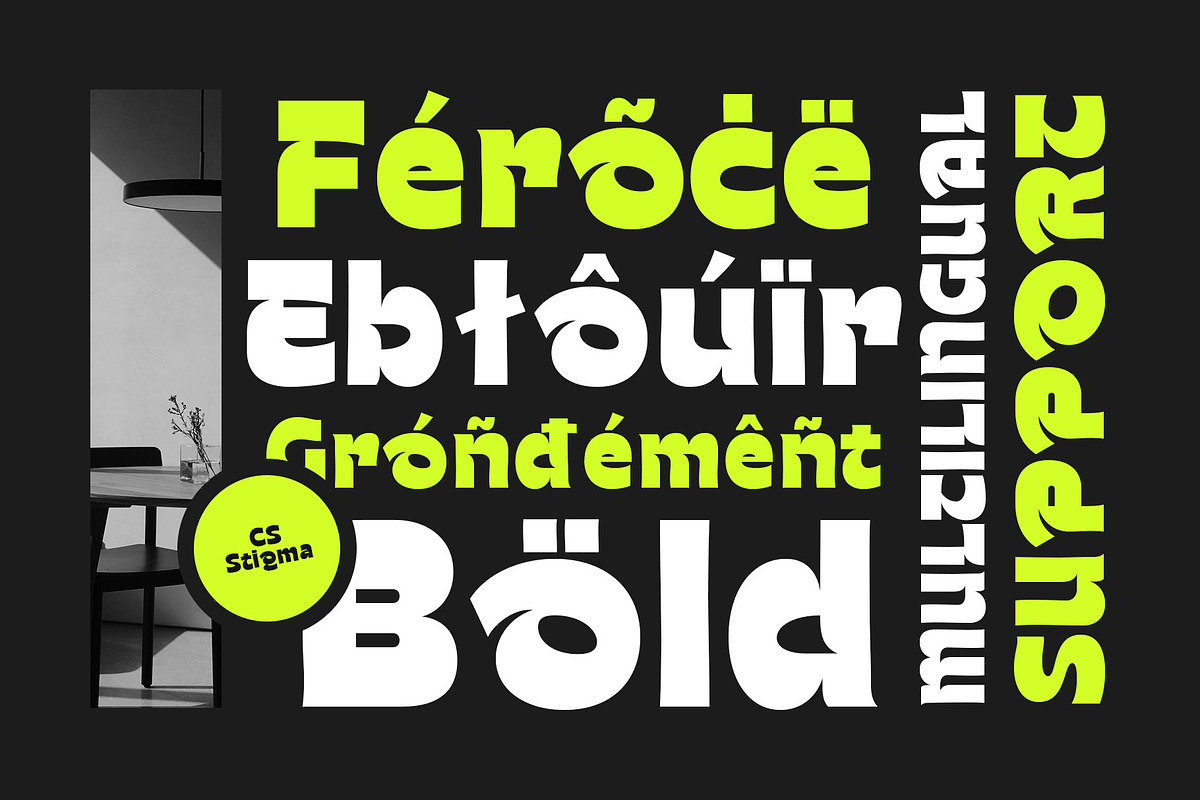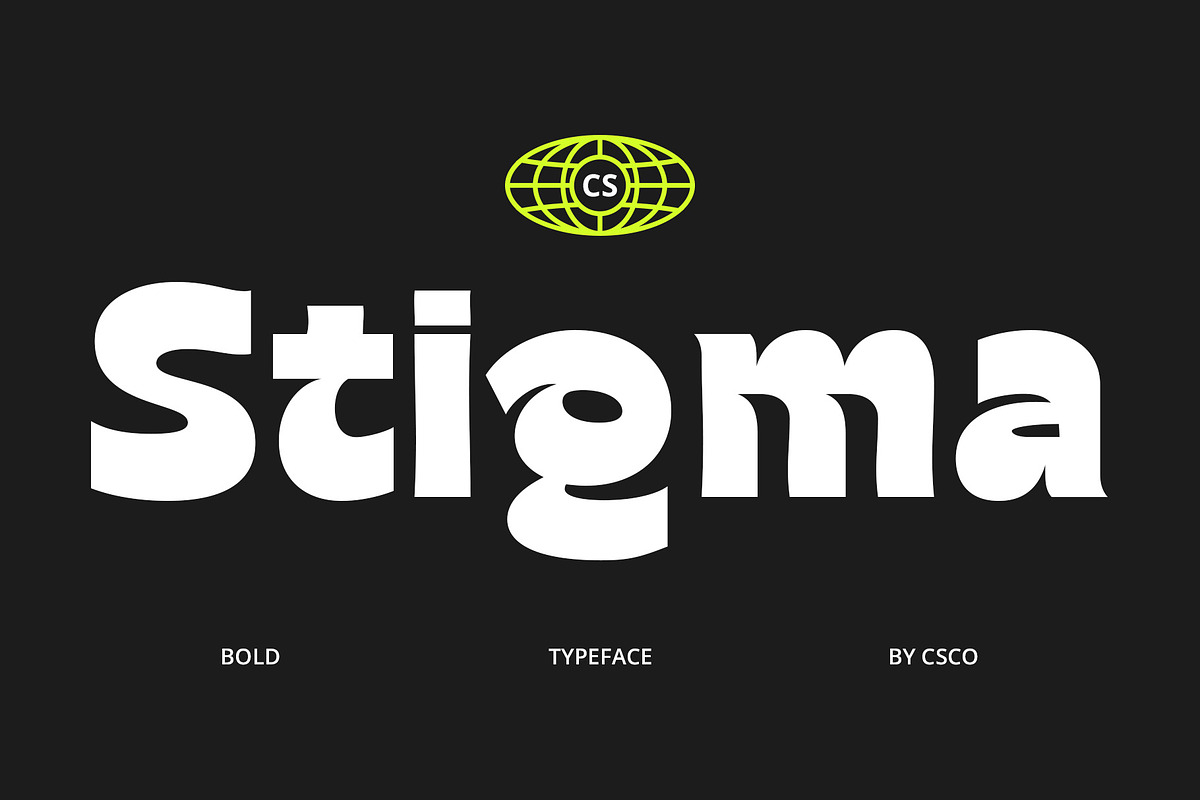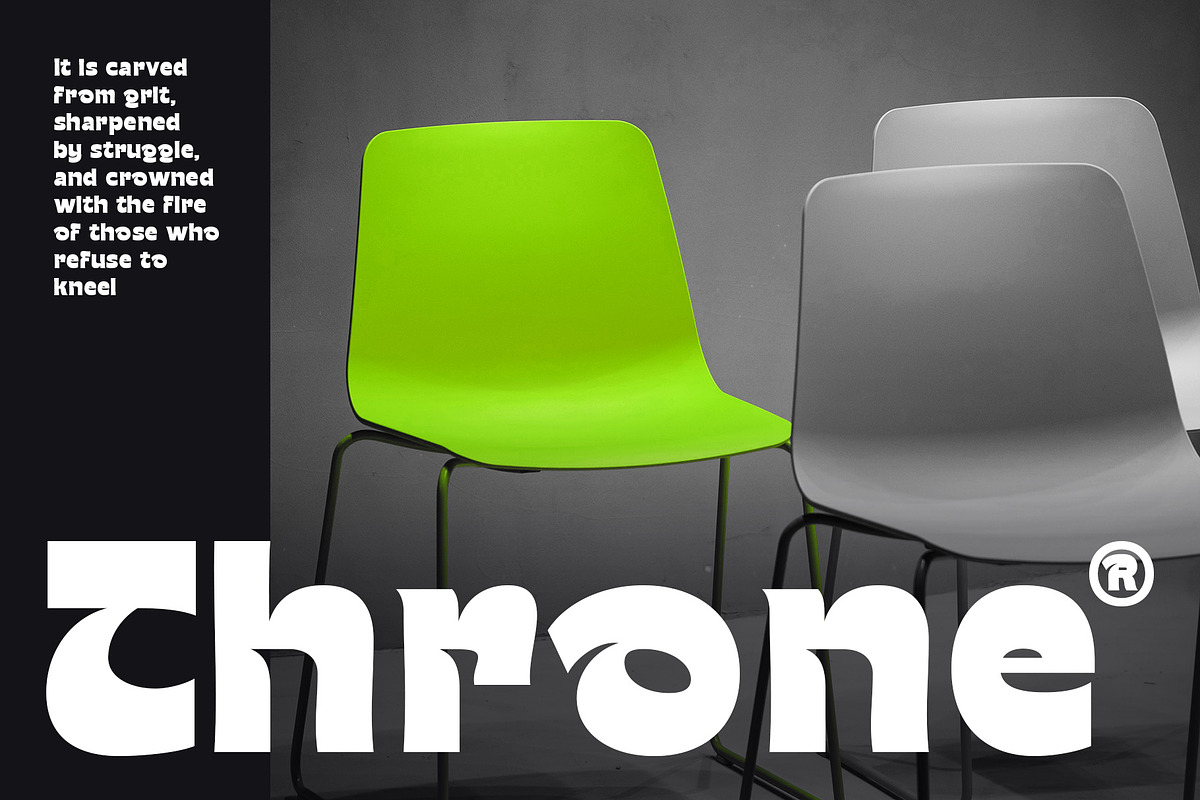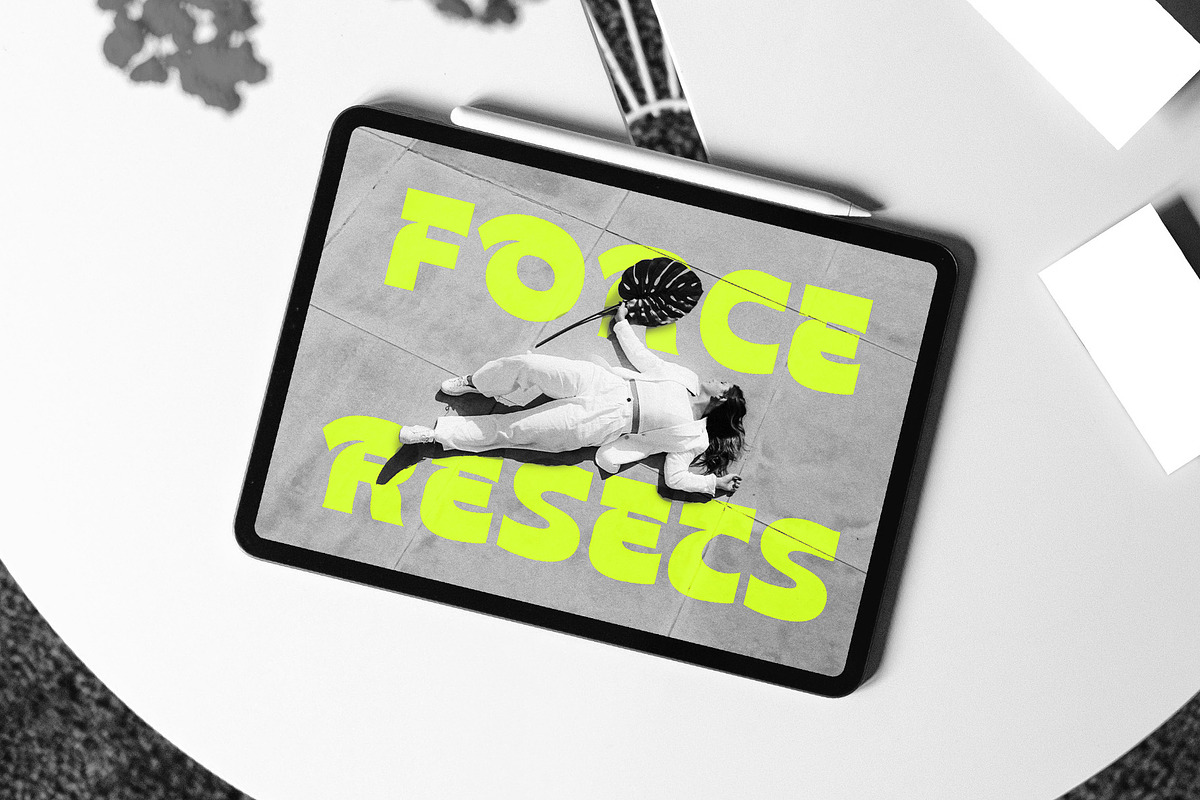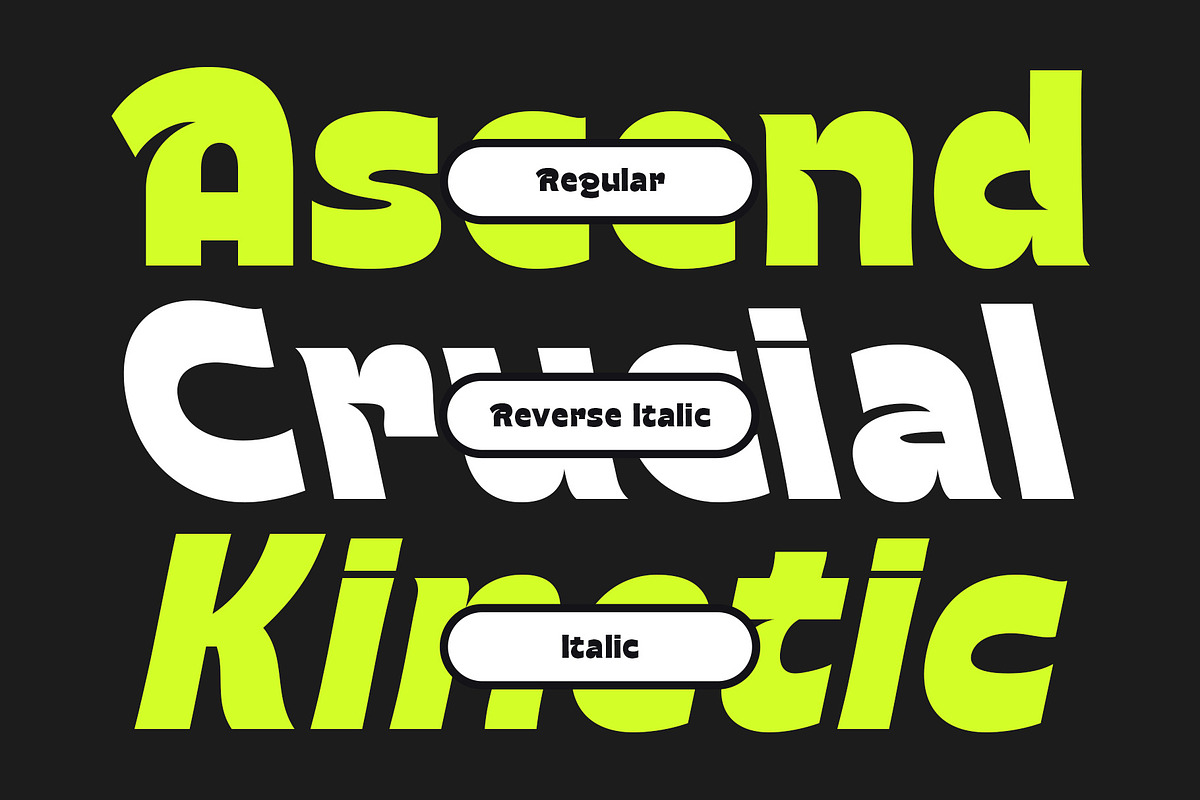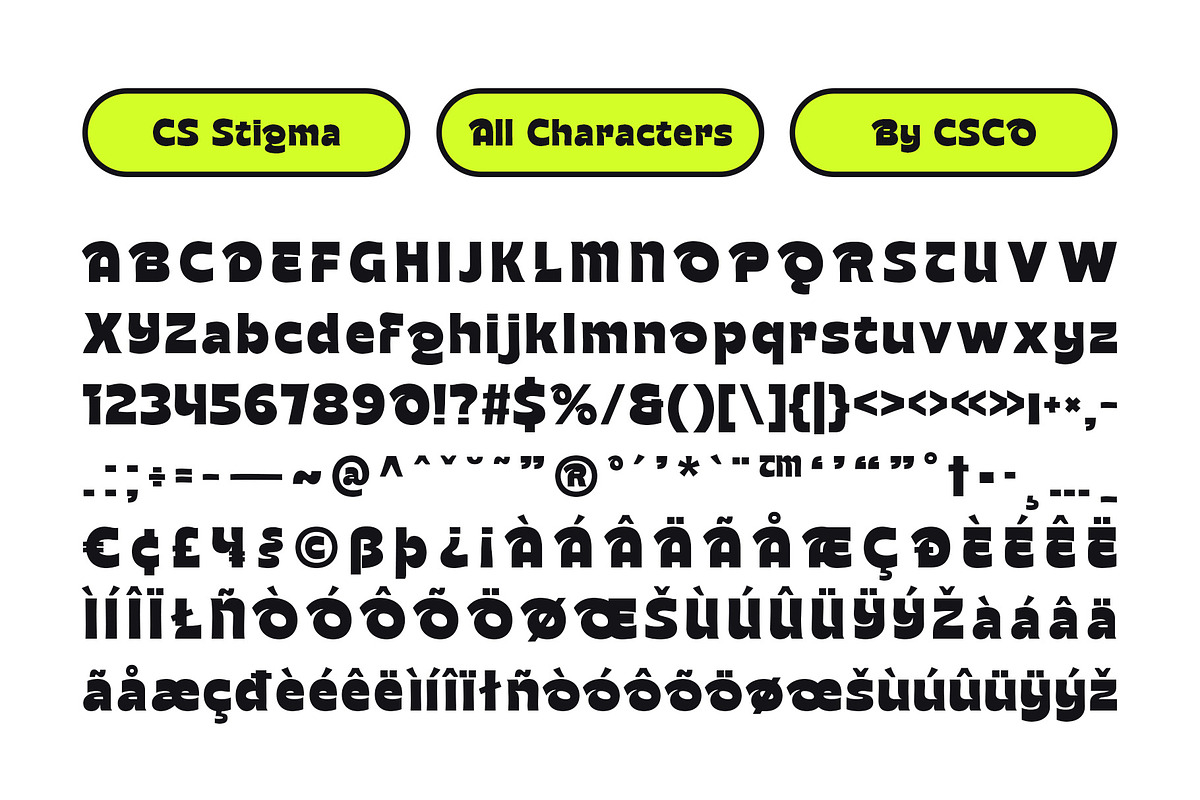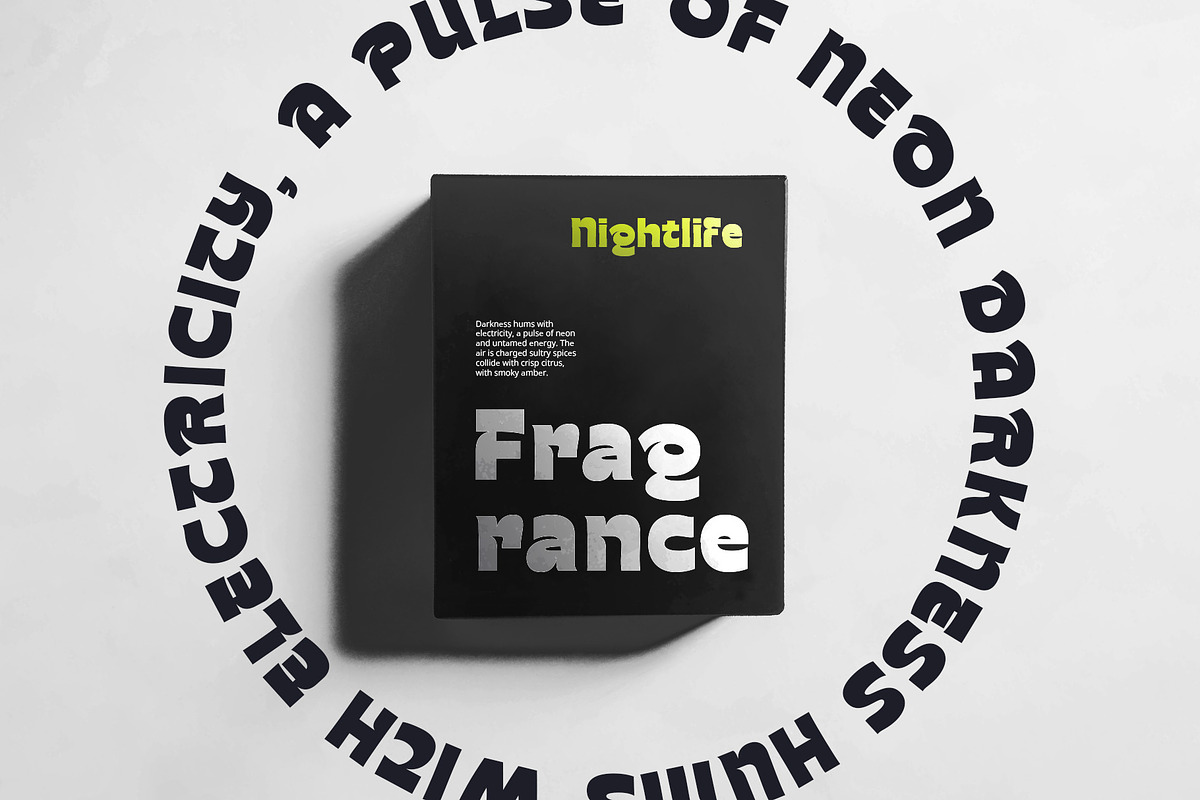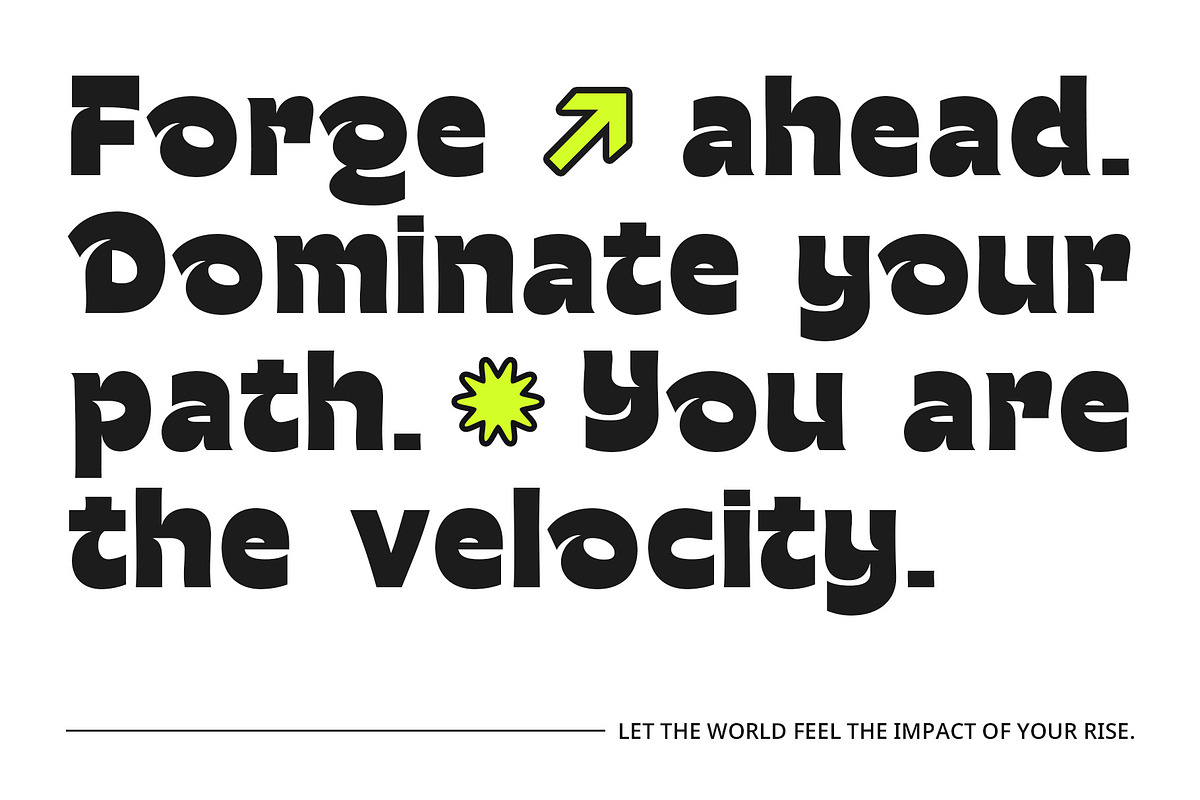
CS Stigma – Bold Font
CS Stigma – A Bold and Playful Display Font
Expressive, Funky, and Full of Energy CS Stigma is a modern display font that combines boldness, fun, and creativity in a single striking design. Featuring thick, strong letterforms with unique proportions and dynamic curves, this font is designed to stand out and make an impact. With a funky and playful essence, CS Stigma brings an element of excitement and spontaneity, making it the perfect choice for projects that demand a youthful and energetic look.
Perfect for Eye-Catching Designs This font is ideal for branding, posters, product packaging, merchandise, advertising, social media graphics, and digital media, where a bold and engaging typeface is essential. Its expressive nature makes it perfect for businesses and creatives looking to inject personality and vibrancy into their designs. Whether used for a modern, edgy brand identity or a high-energy promotional campaign, CS Stigma ensures that your message is delivered with confidence and style.
A Statement of Bold Creativity CS Stigma is more than just a font—it’s a statement of confidence, individuality, and artistic expression. Designed to break the mold and challenge conventional typography, it allows designers to create visuals that are memorable and full of character. Its versatile yet unconventional structure ensures that your designs are visually striking and packed with personality.
- CS Stigma Regular
- CS Stigma Italic
- CS Stigma Reverse Italic